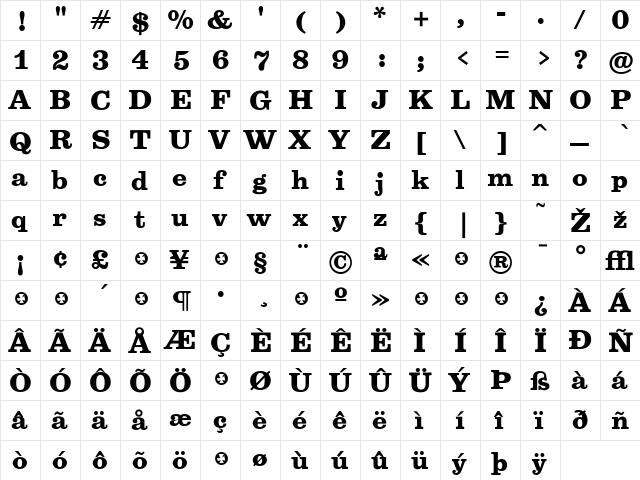
Belizio Regular
Design Context for Belizio Typeface
Belizio is a composed and adaptable typeface that performs quietly and consistently across a wide range of design contexts.